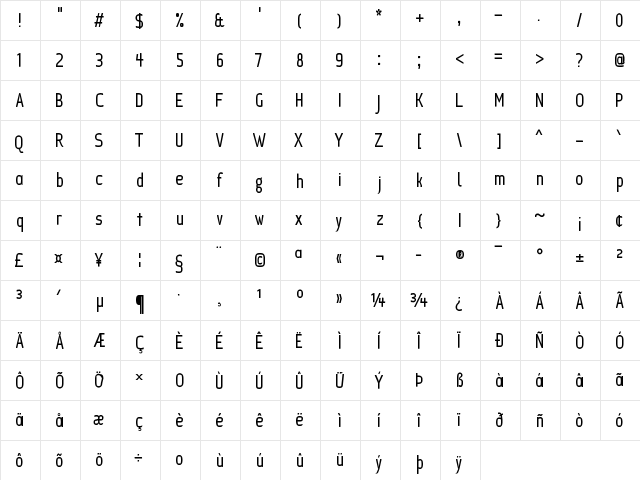
Ice Sans Compressed Regular
| Designer | Wolf Lambert |
Ice Sans Compressed offers clean, dependable letterforms without strong stylistic allegiance, making it a practical choice for designers who need flexibility.